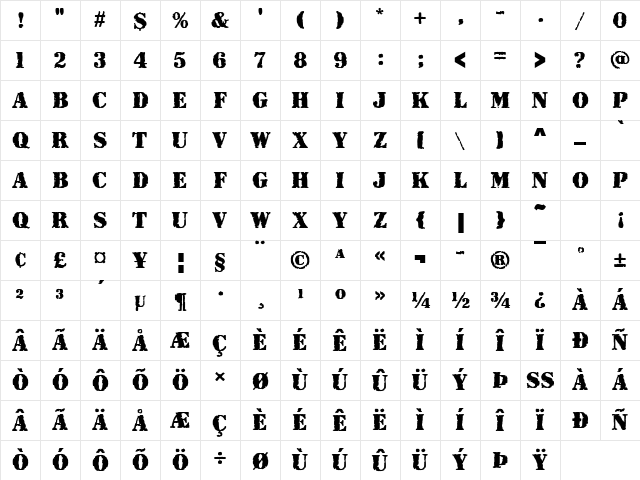
RubberStaSolT Regular
Design Context for RubberStaSolT
RubberStaSolT is a composed and adaptable typeface that performs quietly and consistently across a wide range of design contexts.
Pro Tip: Use RubberStaSolT in both headline and body roles to test its range before committing to a single application.